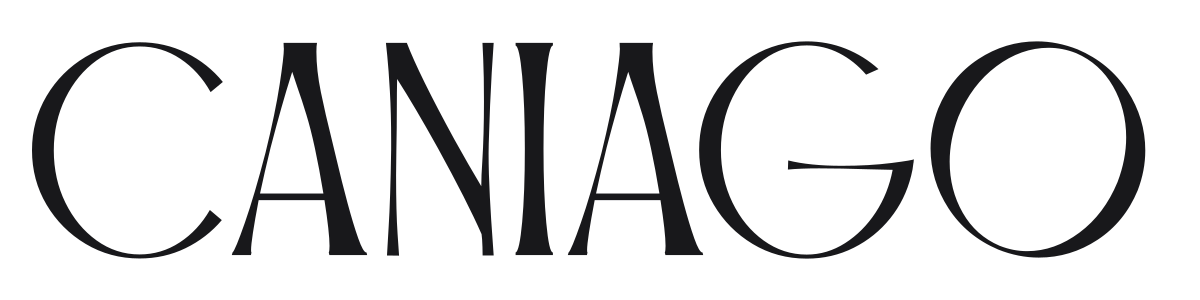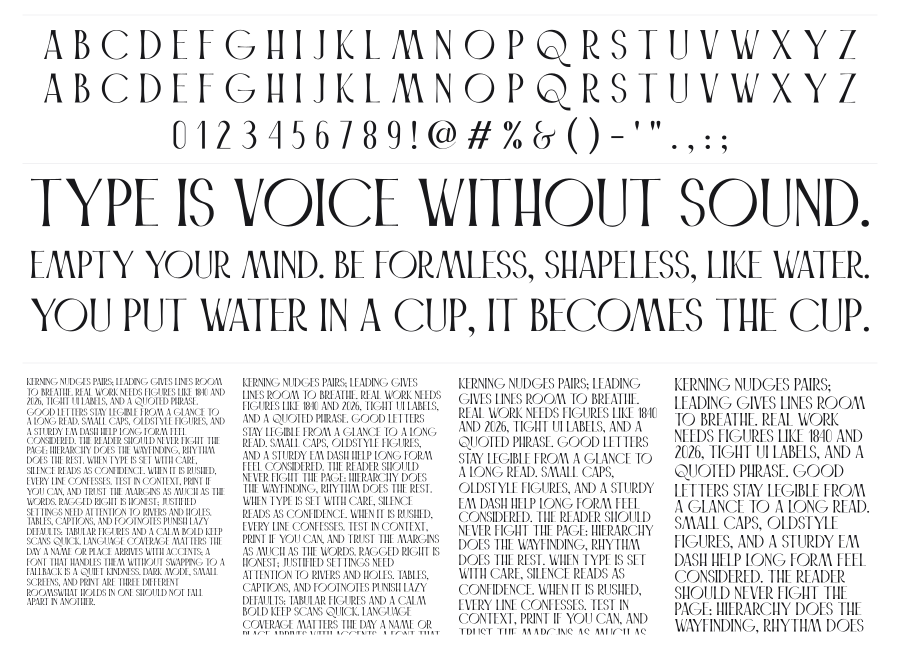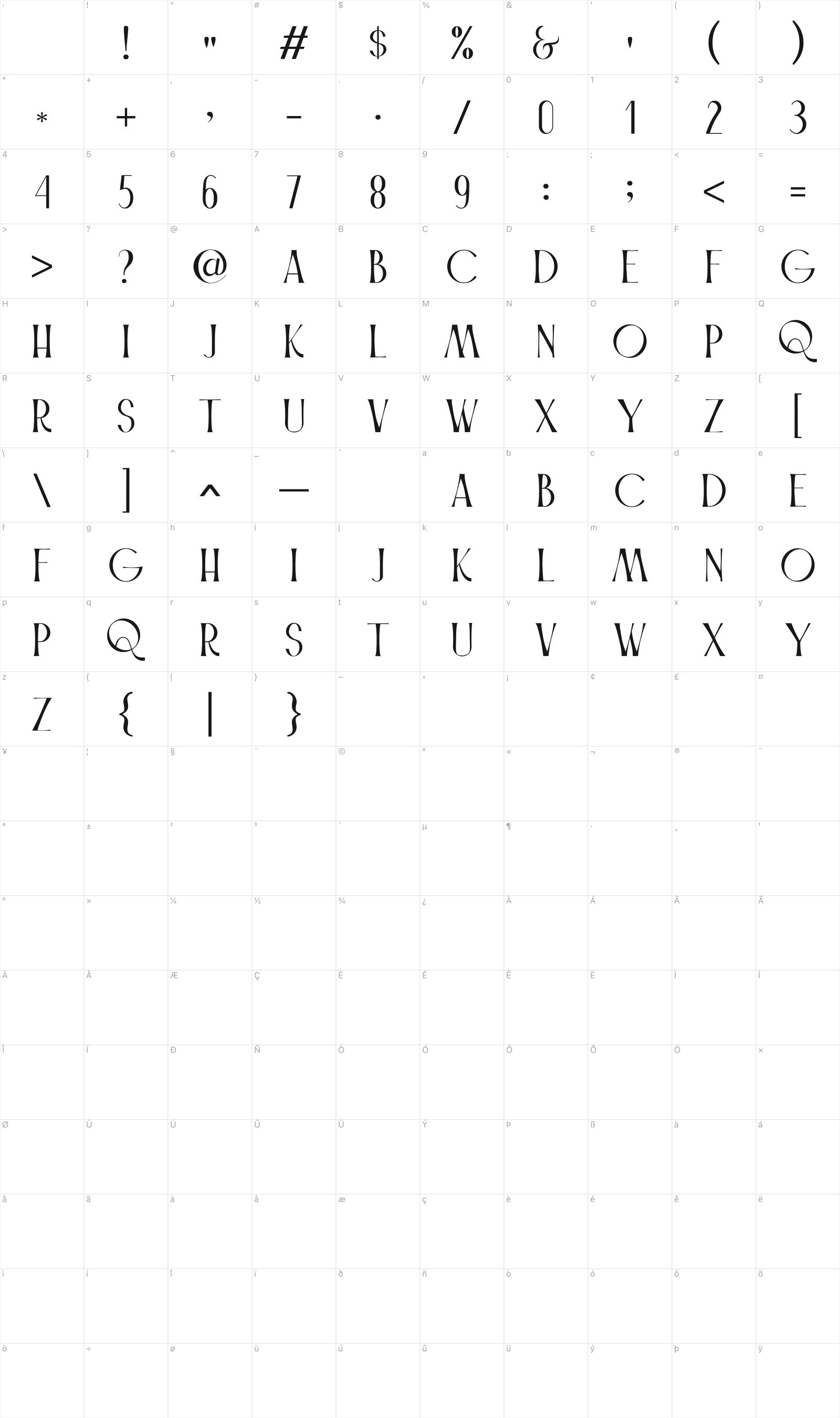
Caniago
Caniago is a condensed display serif with extreme stroke contrast and tall, narrow proportions drawn from didone and art deco traditions. Hairline thins meet heavy vertical stems with dramatic abruptness, giving it a sharp, fashionable edge that reads beautifully at large sizes. The kind of type that belongs on perfume packaging, magazine covers, or luxury brand identities.